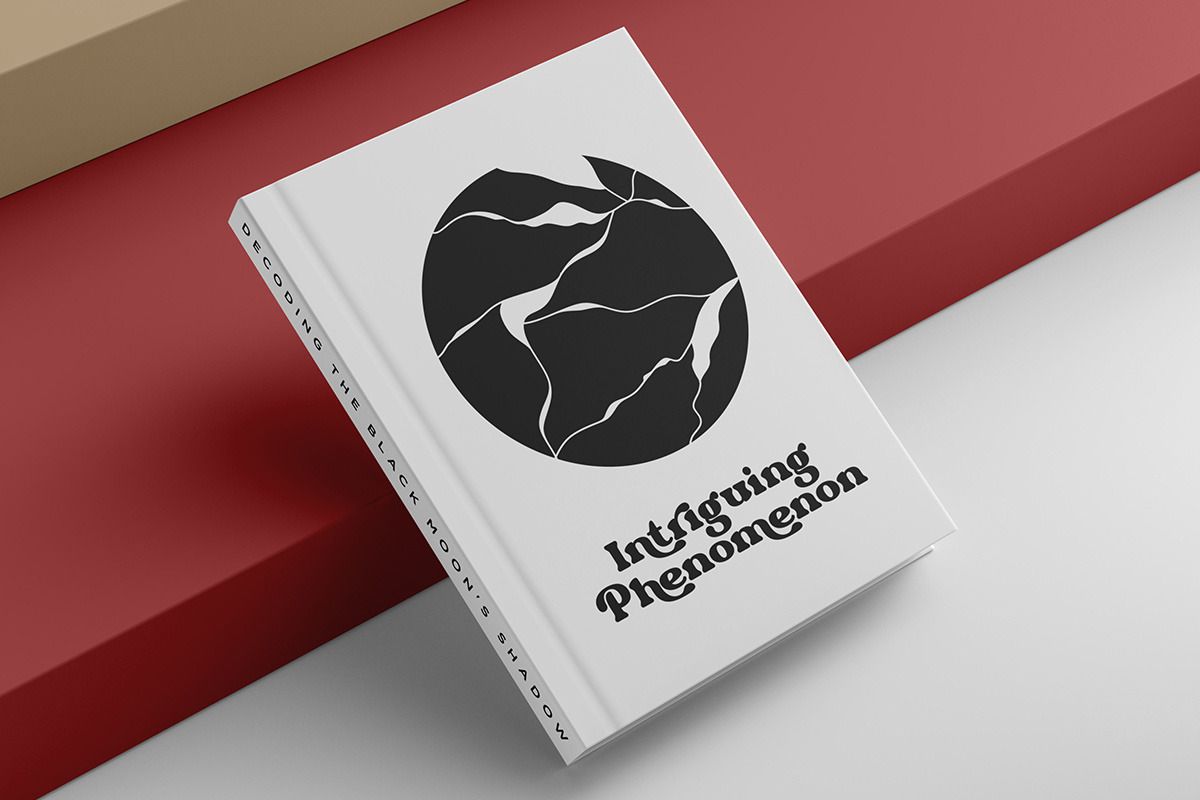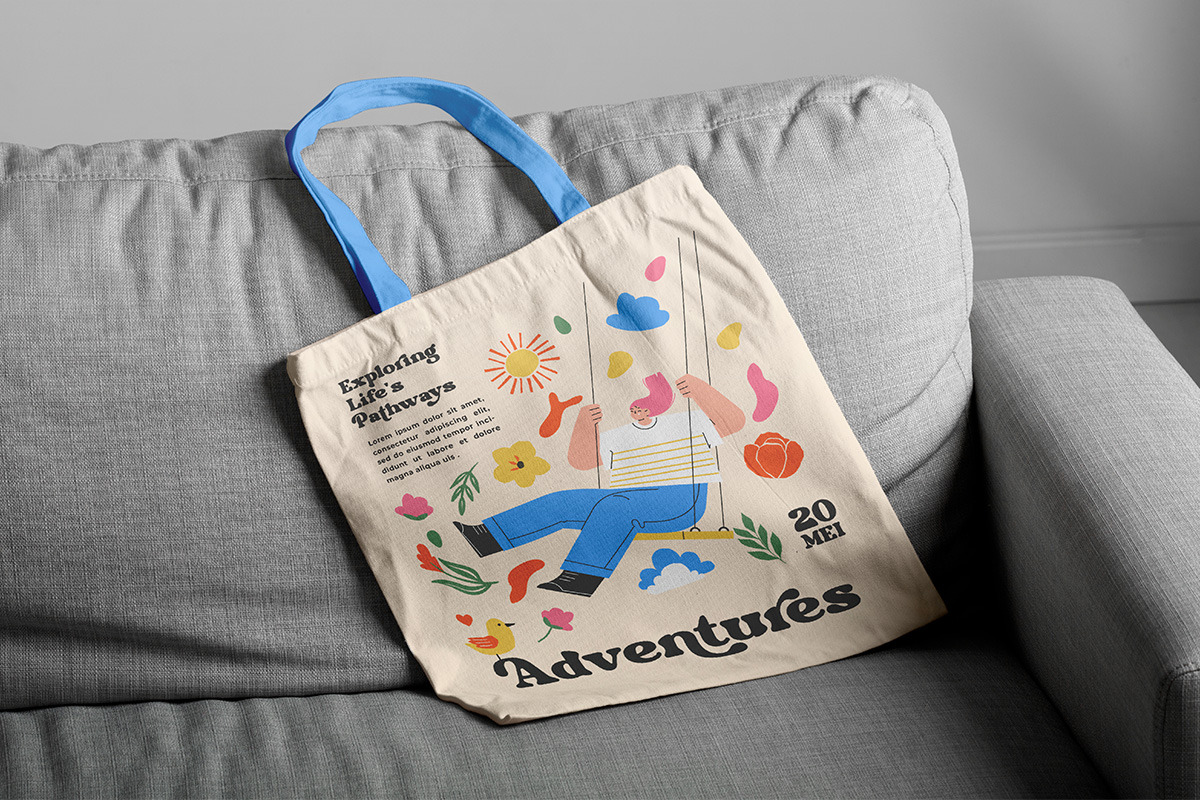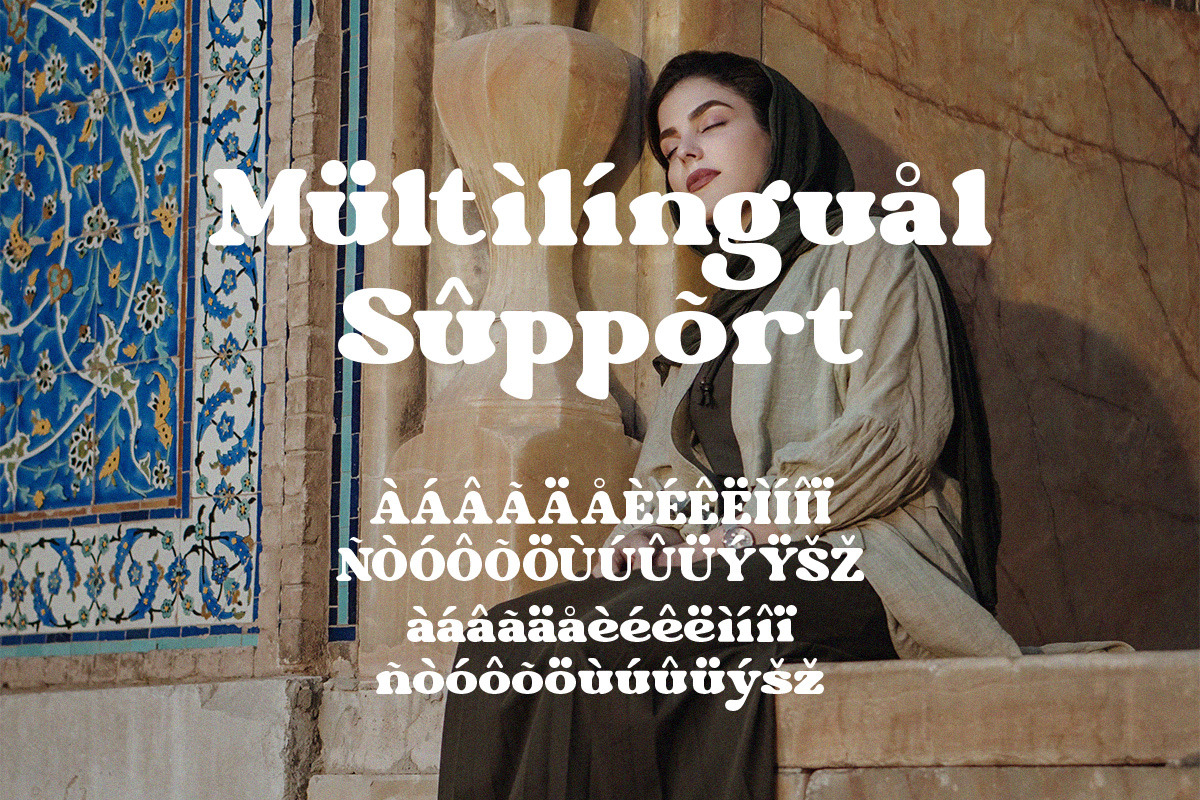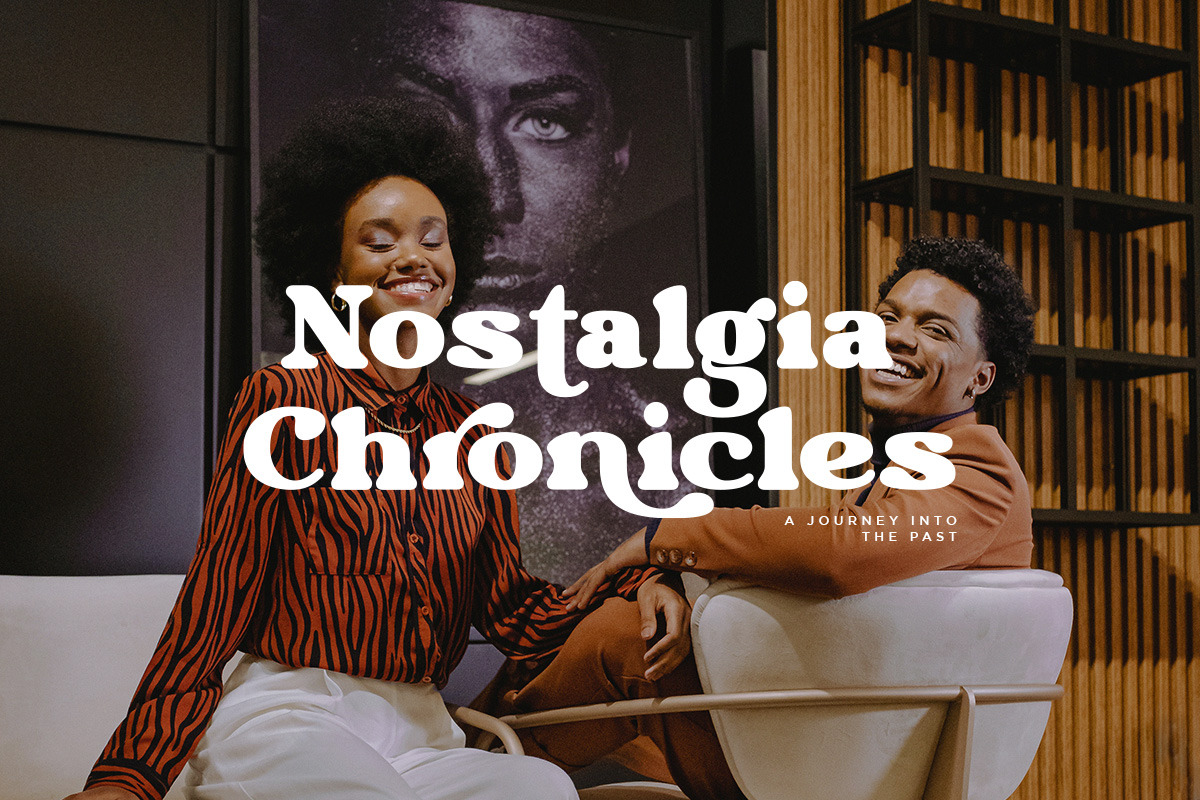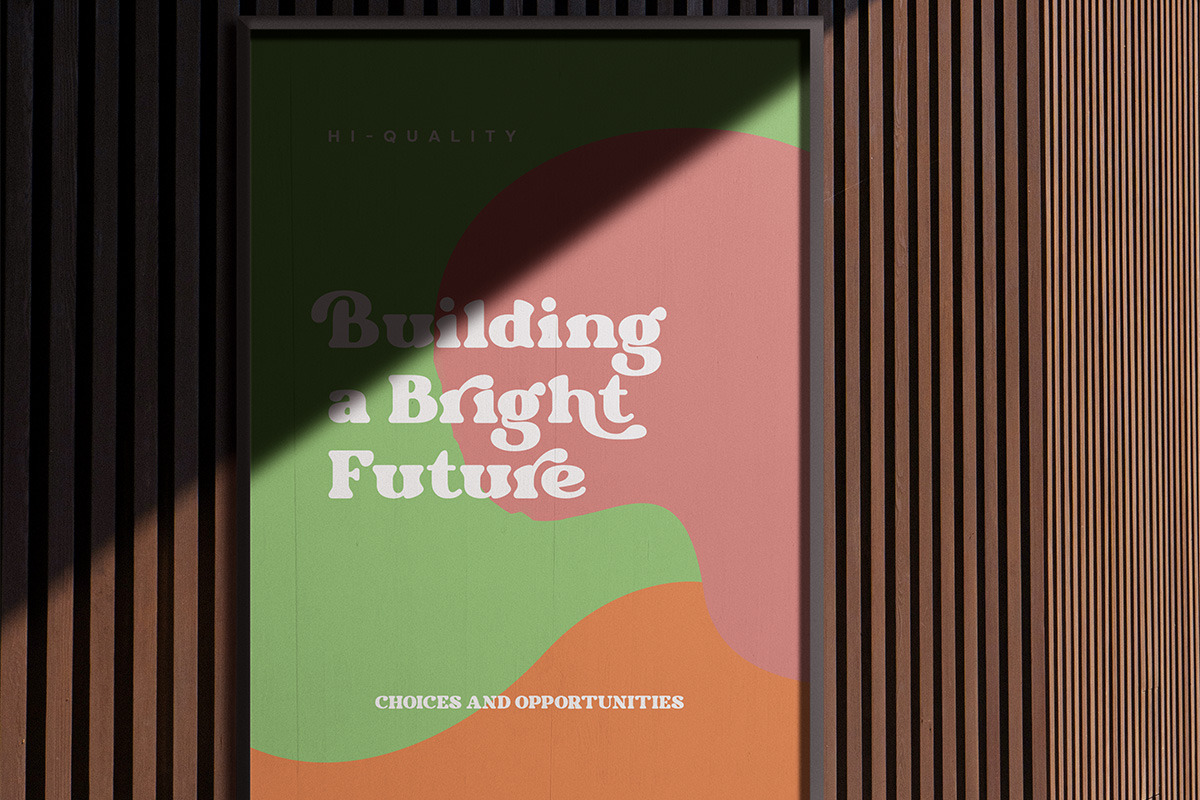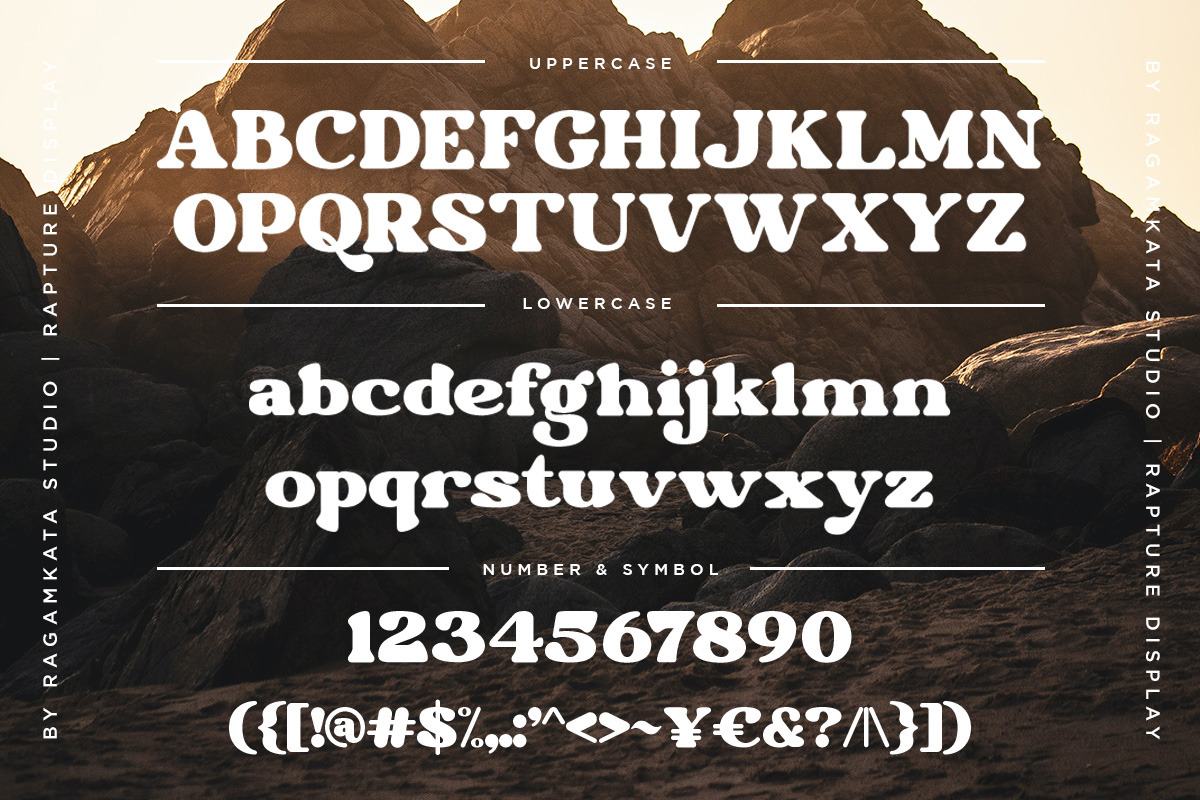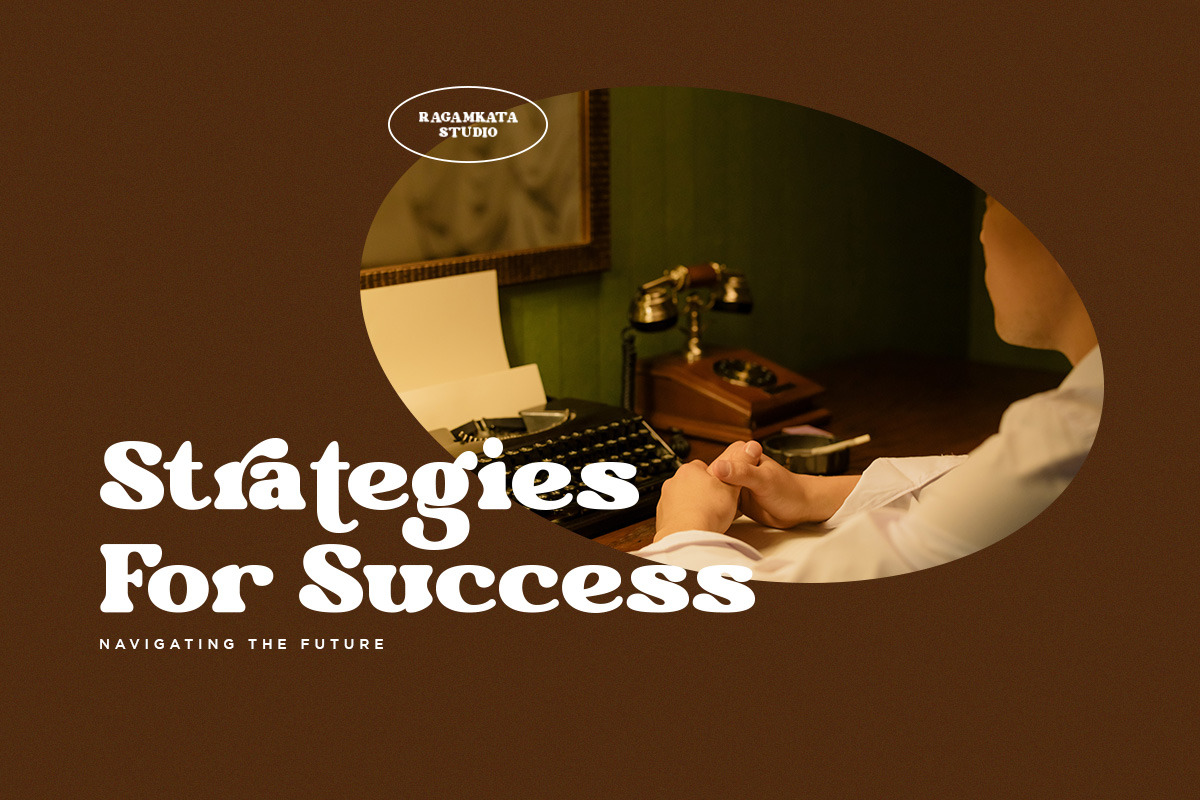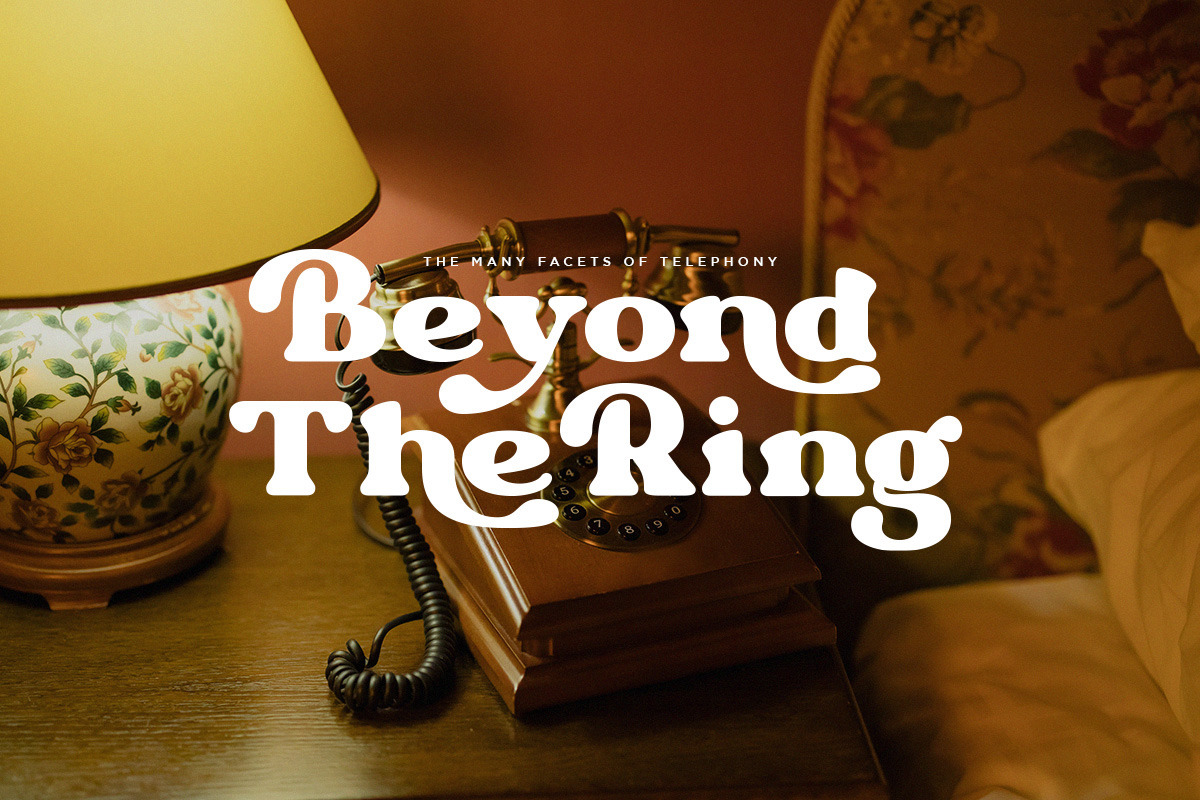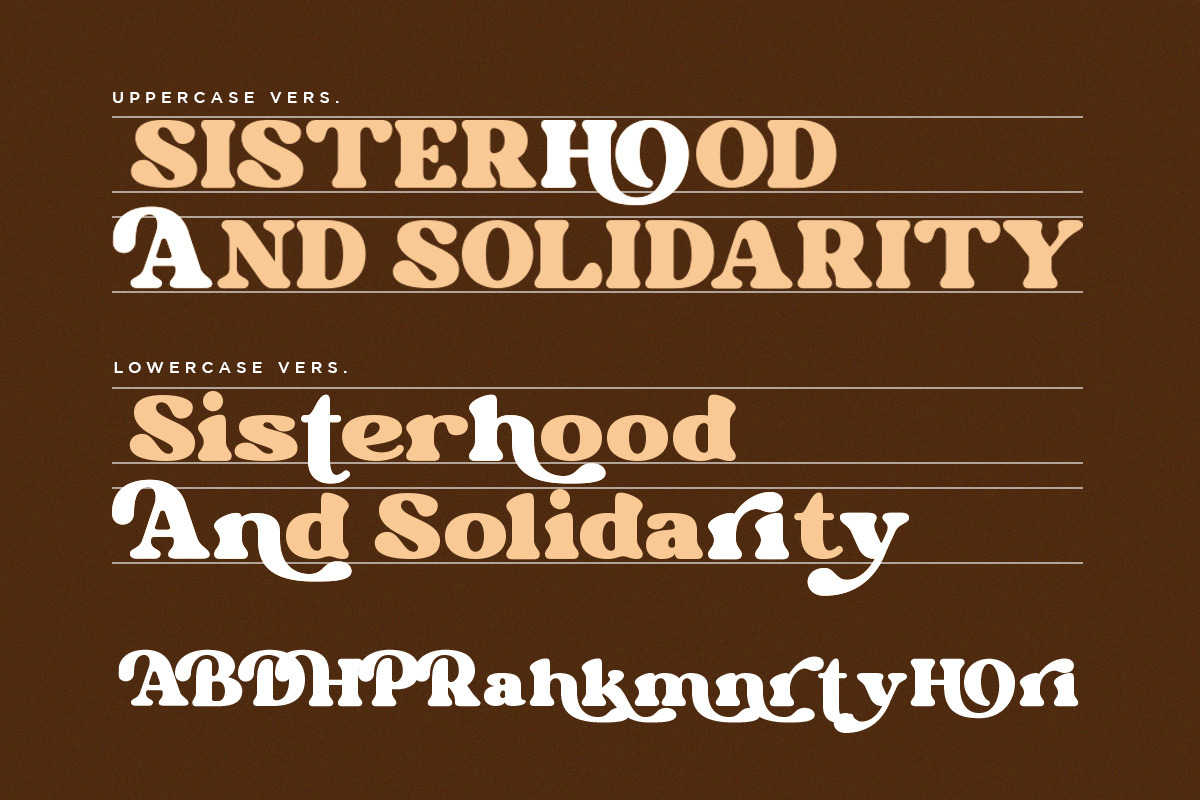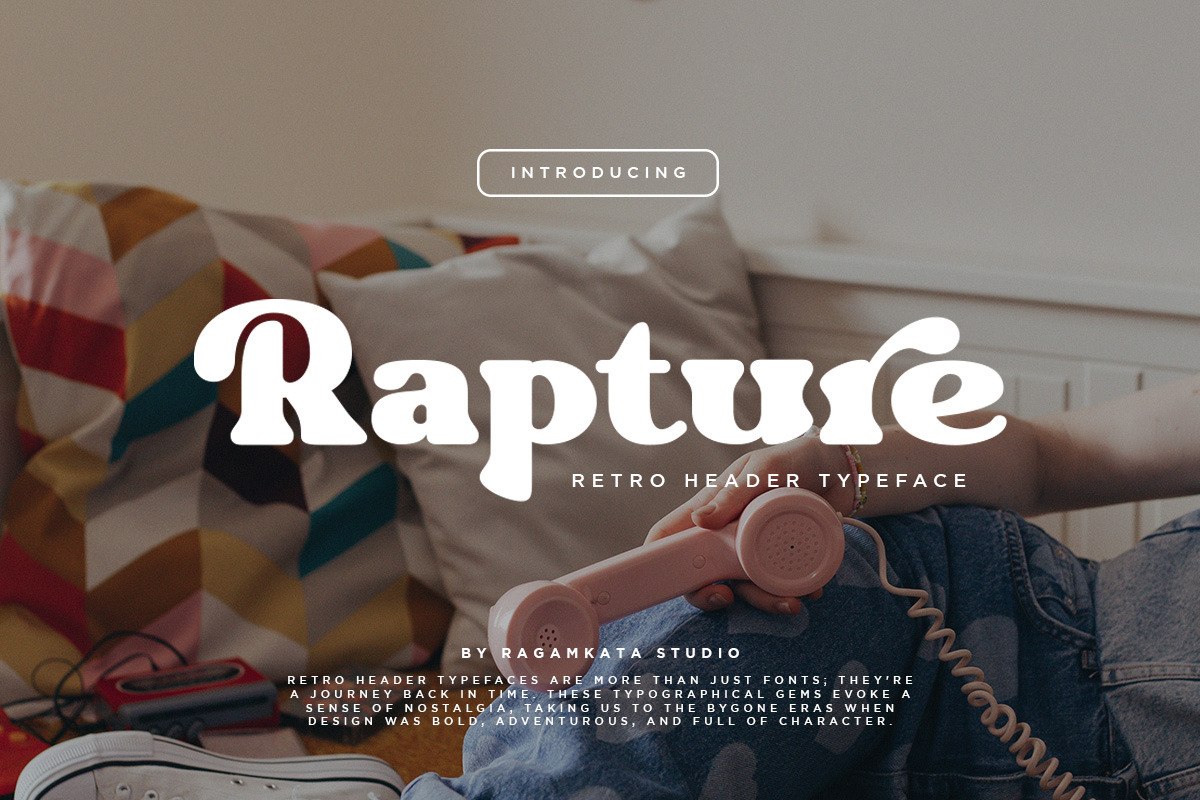
Rapture - Retro Header Typeface
Rapture is a retro display serif font that exudes a classic charm and bold character. With its design inspired by retro styles, this font brings an elegant touch and evokes a sense of the past. Each letter is meticulously crafted with careful attention to detail and proportion, resulting in a visually appealing and unique appearance.
Rapture Features:
- Uppercase And Lowercase
- Alternates And Ligature